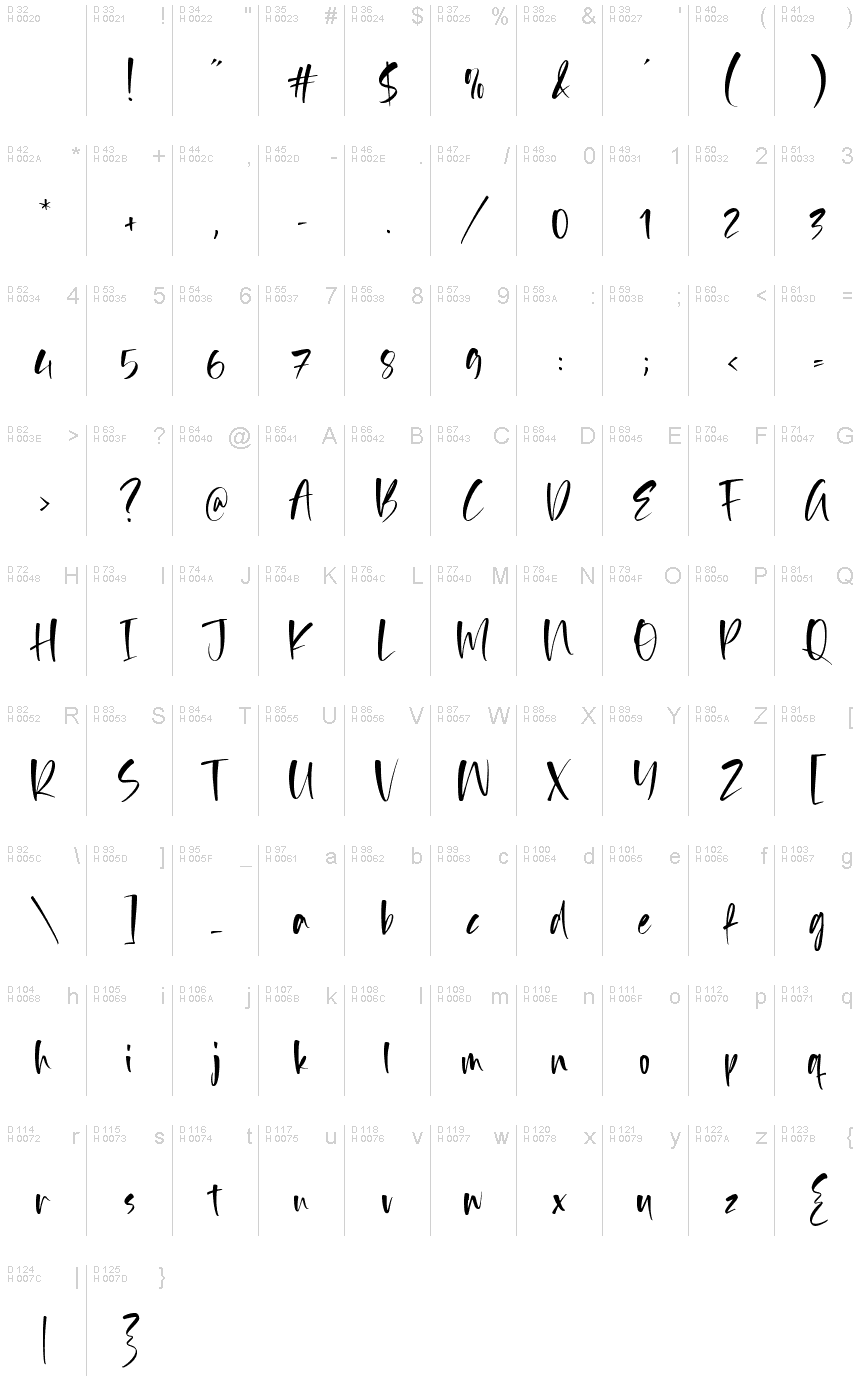
Goliath Soldier
Goliath Soldier, a remarkable creation by Balpirick Studio, is a captivating handwritten font that adds a touch of authenticity to any project. Its semi-light weight and semi-condensed width make it perfect for conveying elegance and sophistication in various designs.
Whether you're working on wedding invitations, fashion magazines, or luxury branding, Goliath Soldier effortlessly infuses your work with a sense of refinement. With its unique charm and versatility, this font invites you to explore endless possibilities in creating stunning visual experiences.